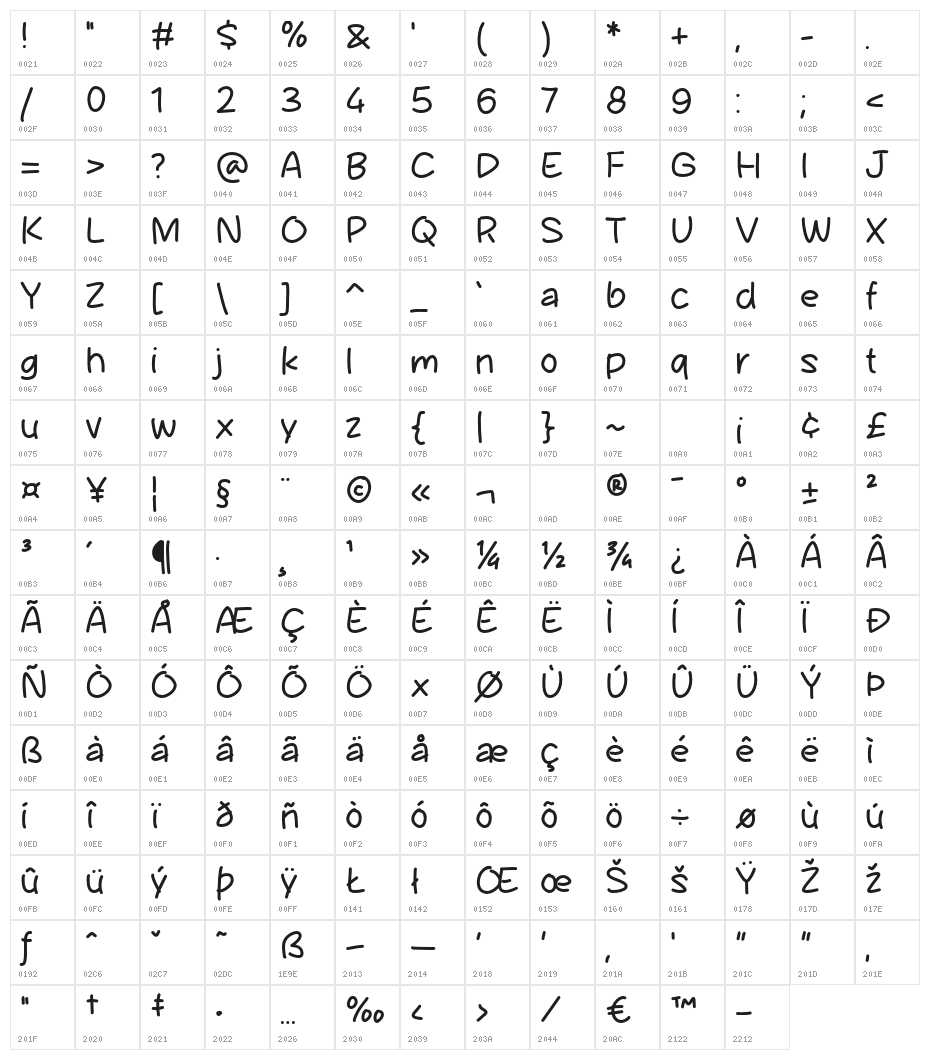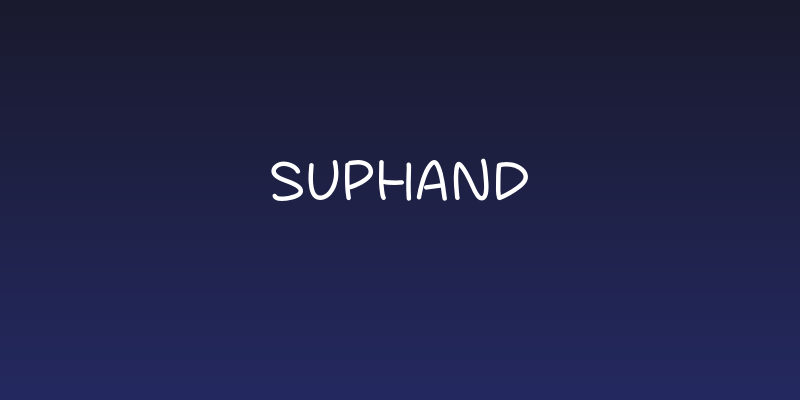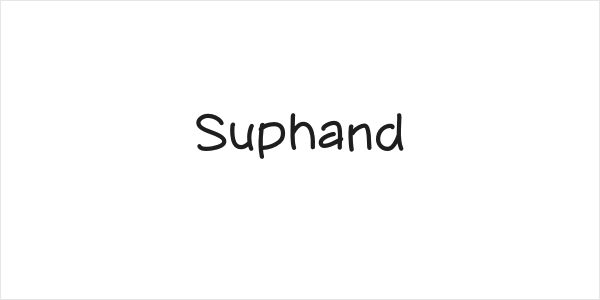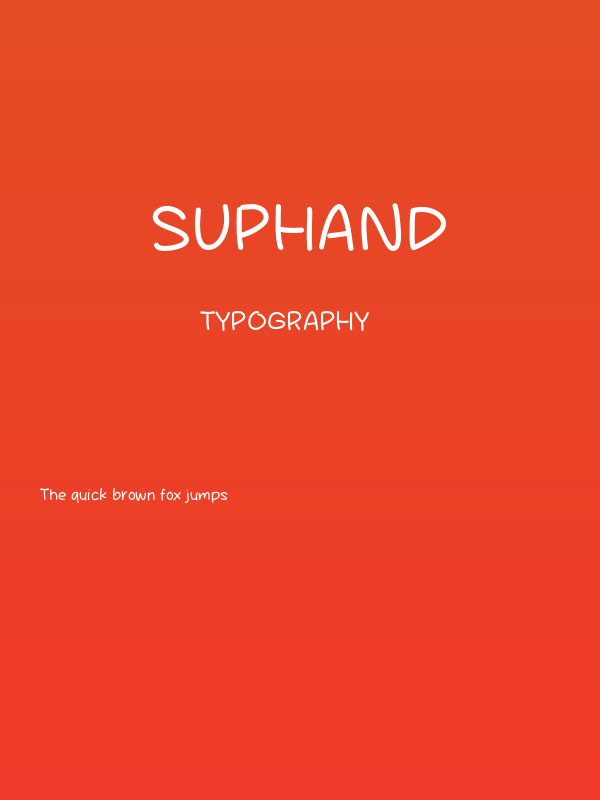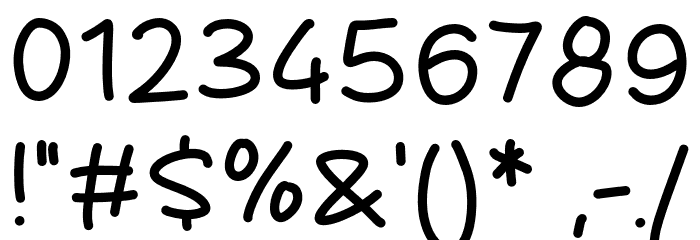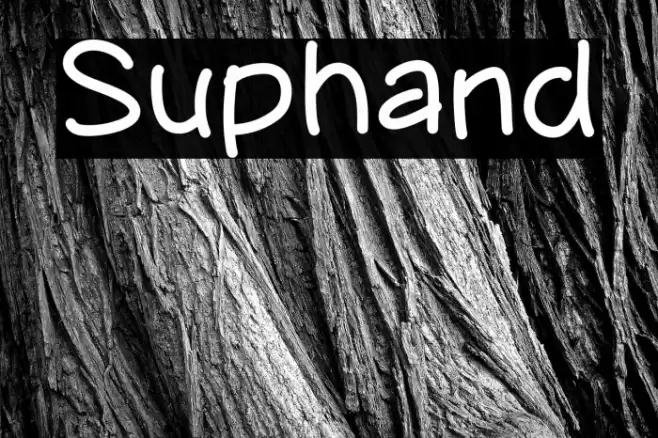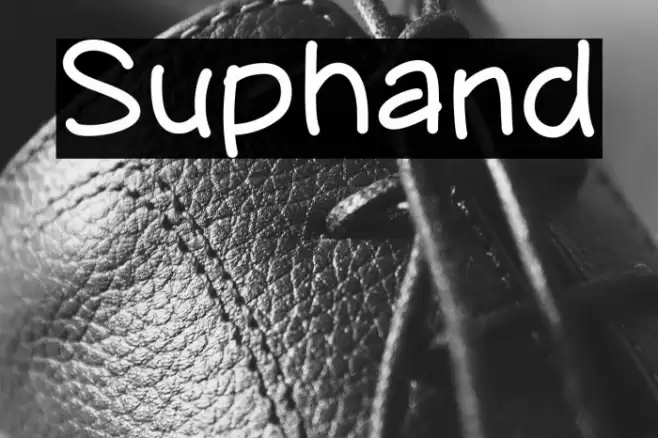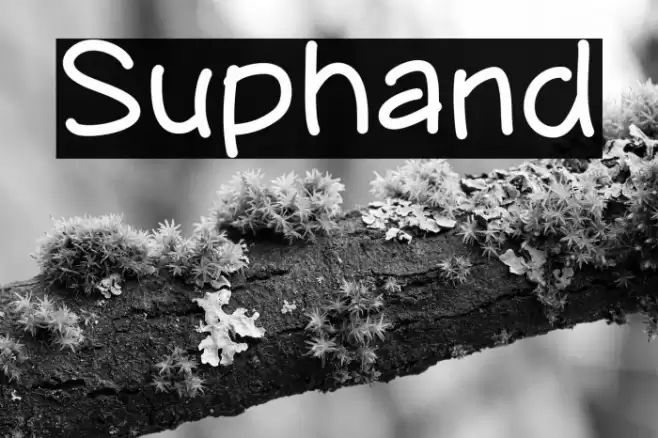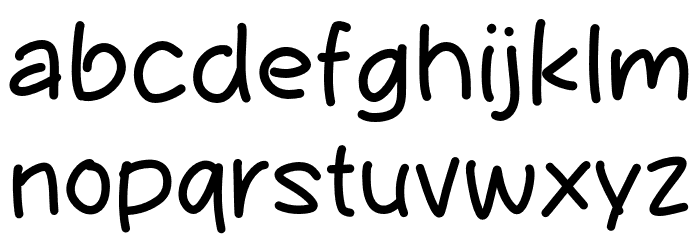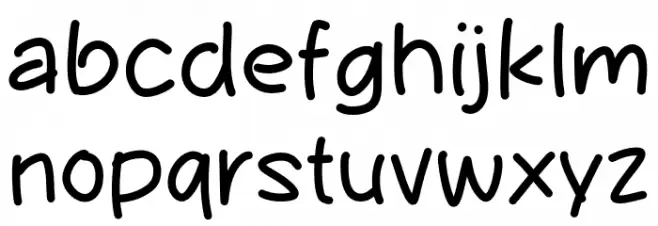
Suphand Font
Suphand Description
This font features a playful and casual handwritten style, characterized by its rounded and slightly irregular letterforms. The strokes are smooth and consistent, giving it a friendly and approachable appearance. The uppercase and lowercase letters maintain a uniform height, contributing to its legibility. Numbers and special characters are designed to match the overall style, ensuring coherence across different uses. This font is ideal for projects that require a personal touch, such as invitations, greeting cards, or informal branding materials.
| Overall Style | Casual, Playful |
| Use Case | Headlines, Informal text, Creative projects |
| Proposed Projects | Ideal for greeting cards, invitations, children's books, and informal branding. |